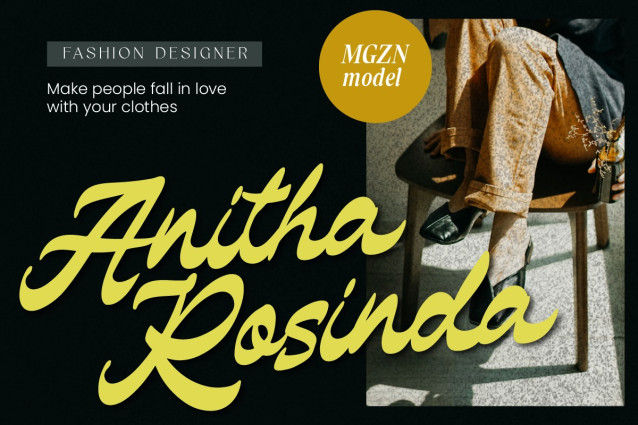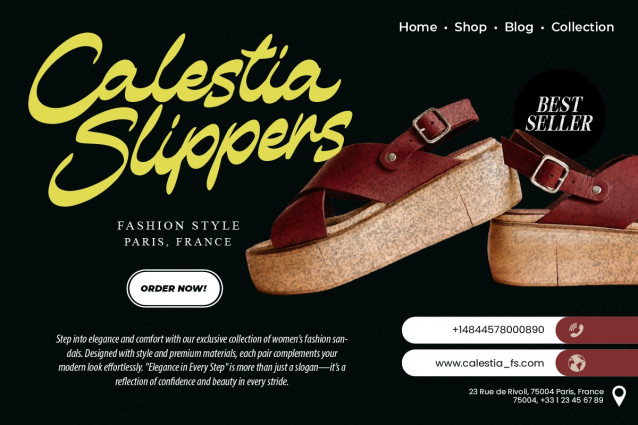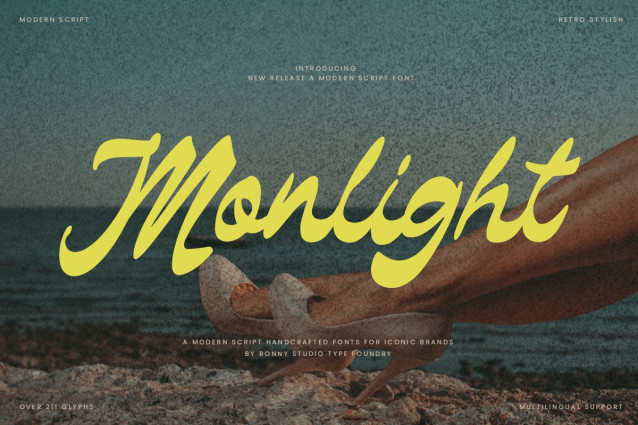
Monlight Font
Monlight Font is a modern script font with a stylish retro touch. Designed for brands that want to stand out, Monlight is perfect for logos, product packaging, merchandise, social media, and various creative projects. With smooth curves and a distinctive handwritten style, Monlight brings a classic yet modern feel, adding a luxurious and exclusive impression to your designs.